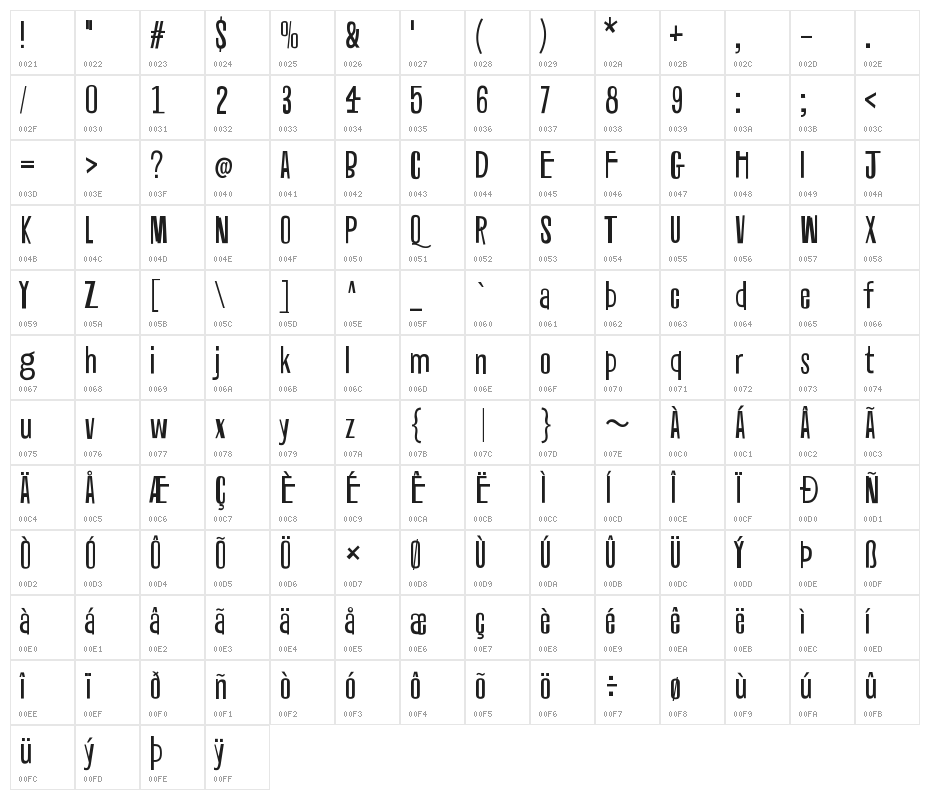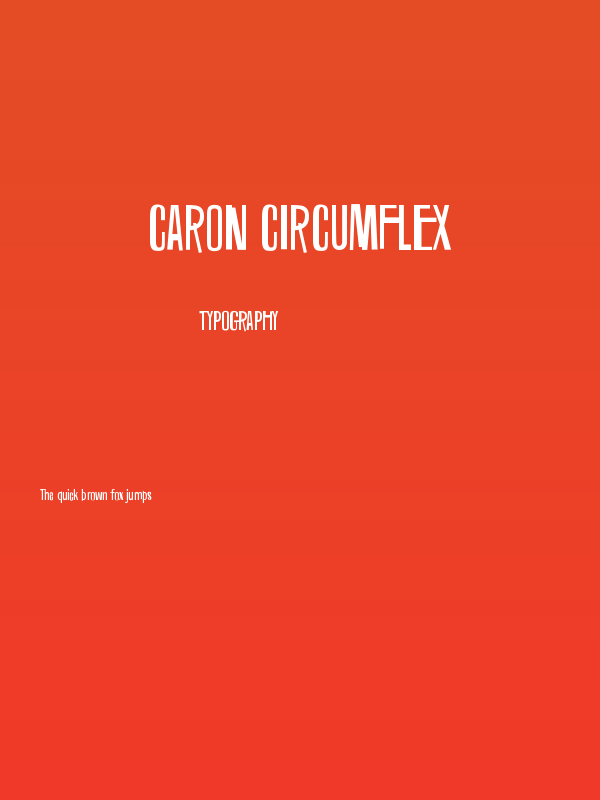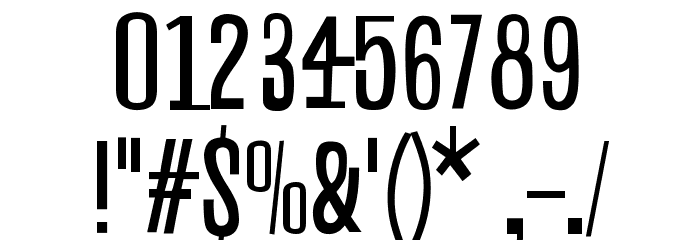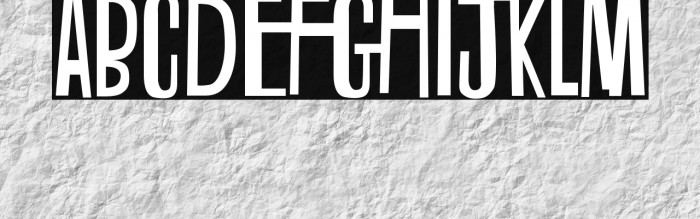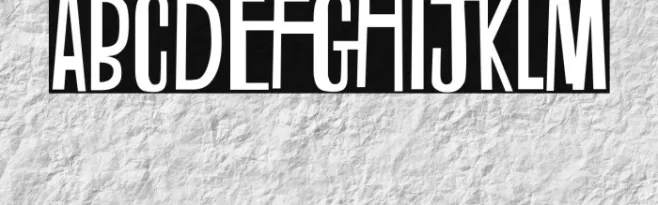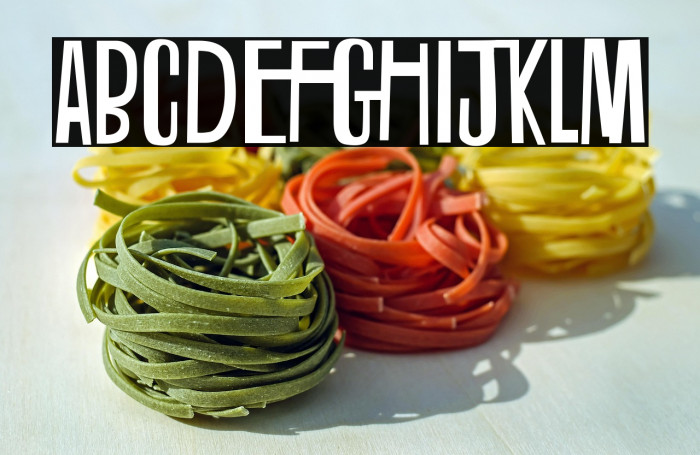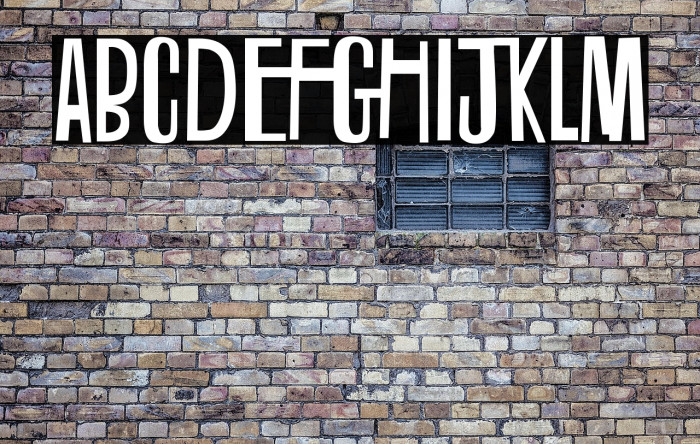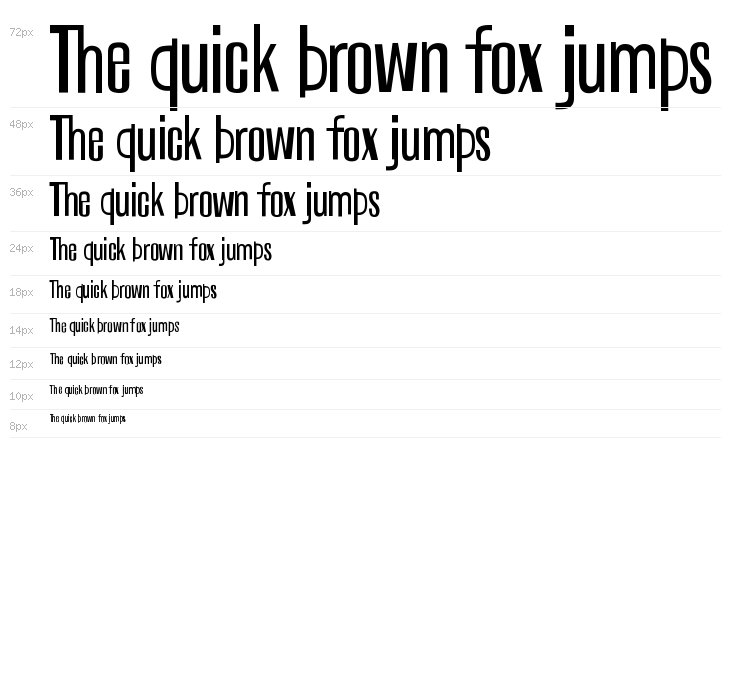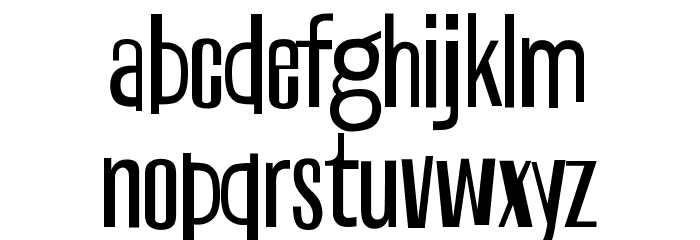
Caron Circumflex Font
Caron Circumflex Description
This font features a bold and condensed style, characterized by its tall, narrow letterforms. The uppercase letters are striking and assertive, while the lowercase letters maintain a consistent height that complements the overall design. The numerals are clear and easy to read, making them suitable for various applications. Special characters are included, adding versatility to the font's use. The uniform stroke width across all characters gives it a cohesive and modern appearance, ideal for making a strong visual impact.
| Proposed Projects | Ideal for headlines, posters, branding, and advertising where a strong visual impact is needed. |